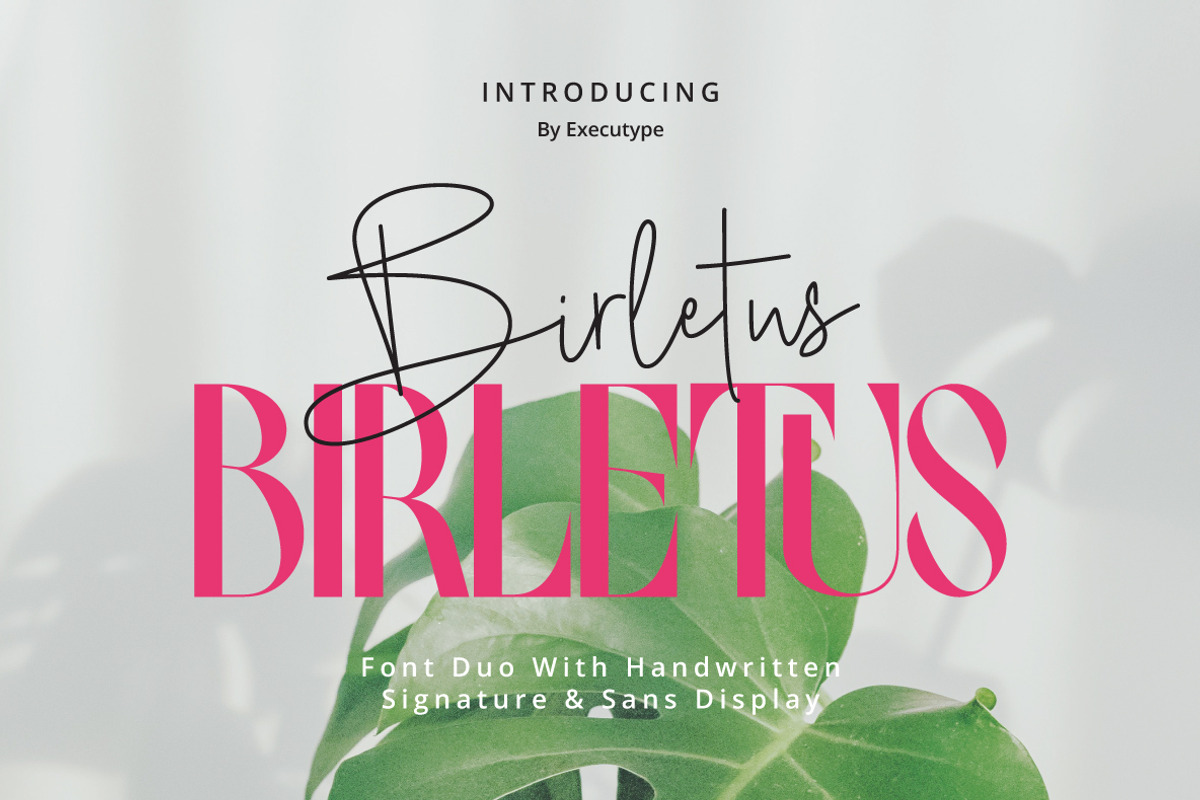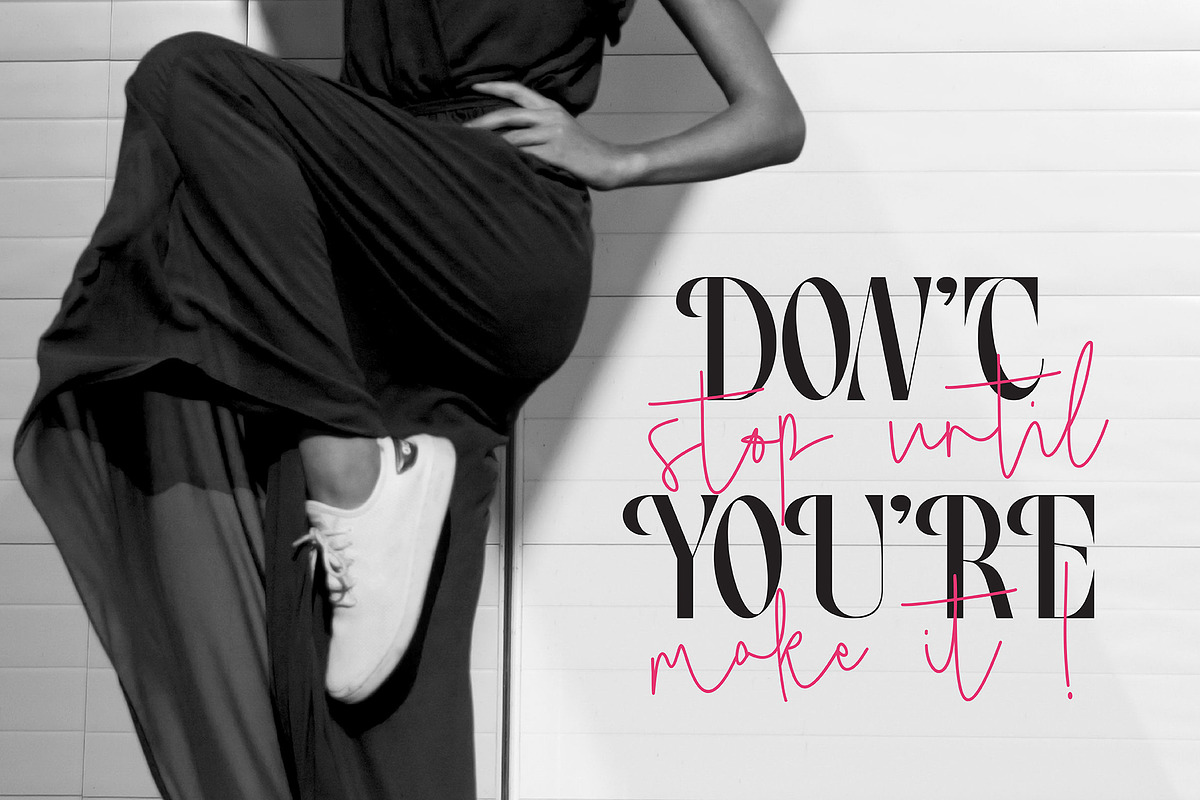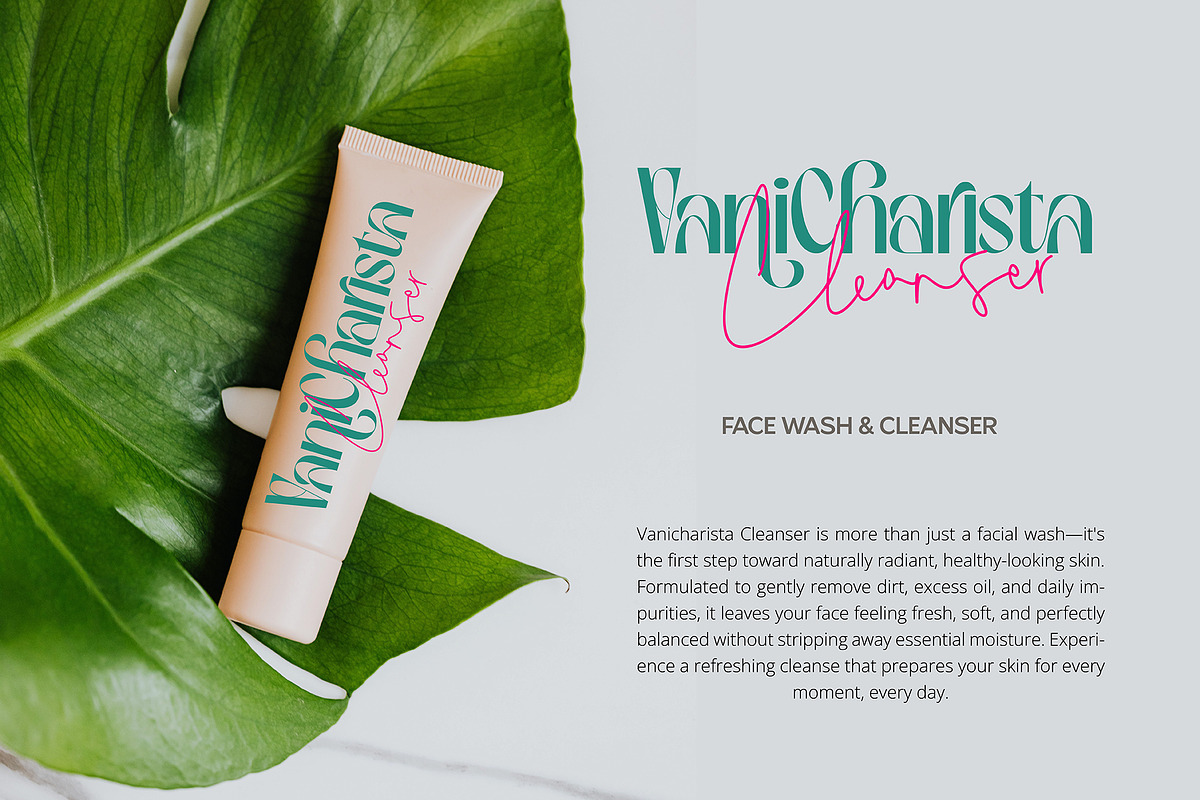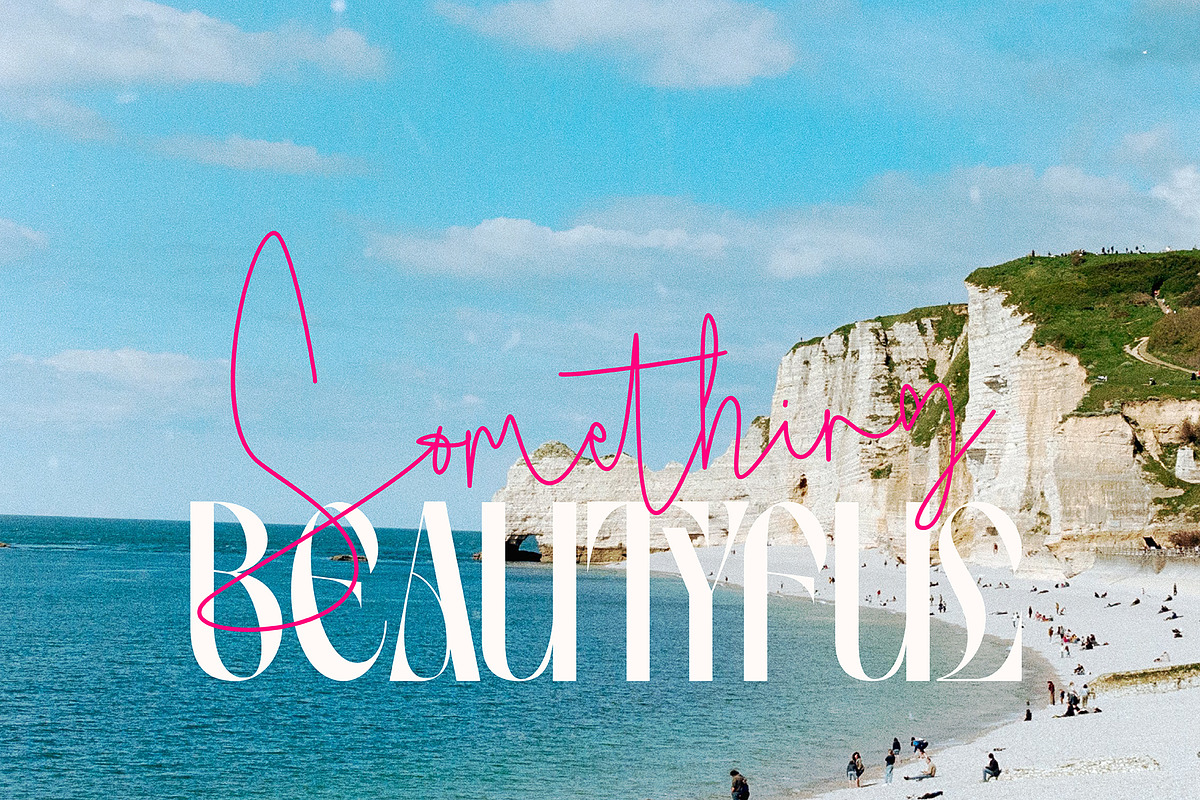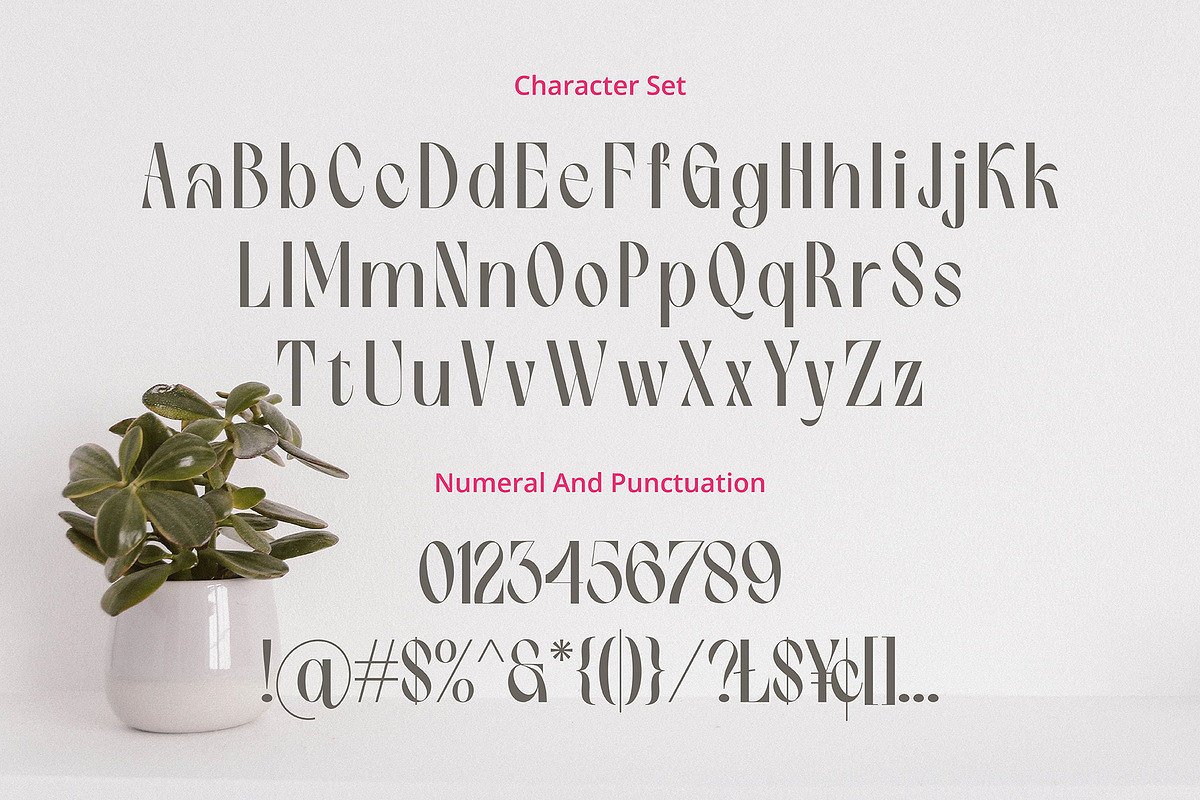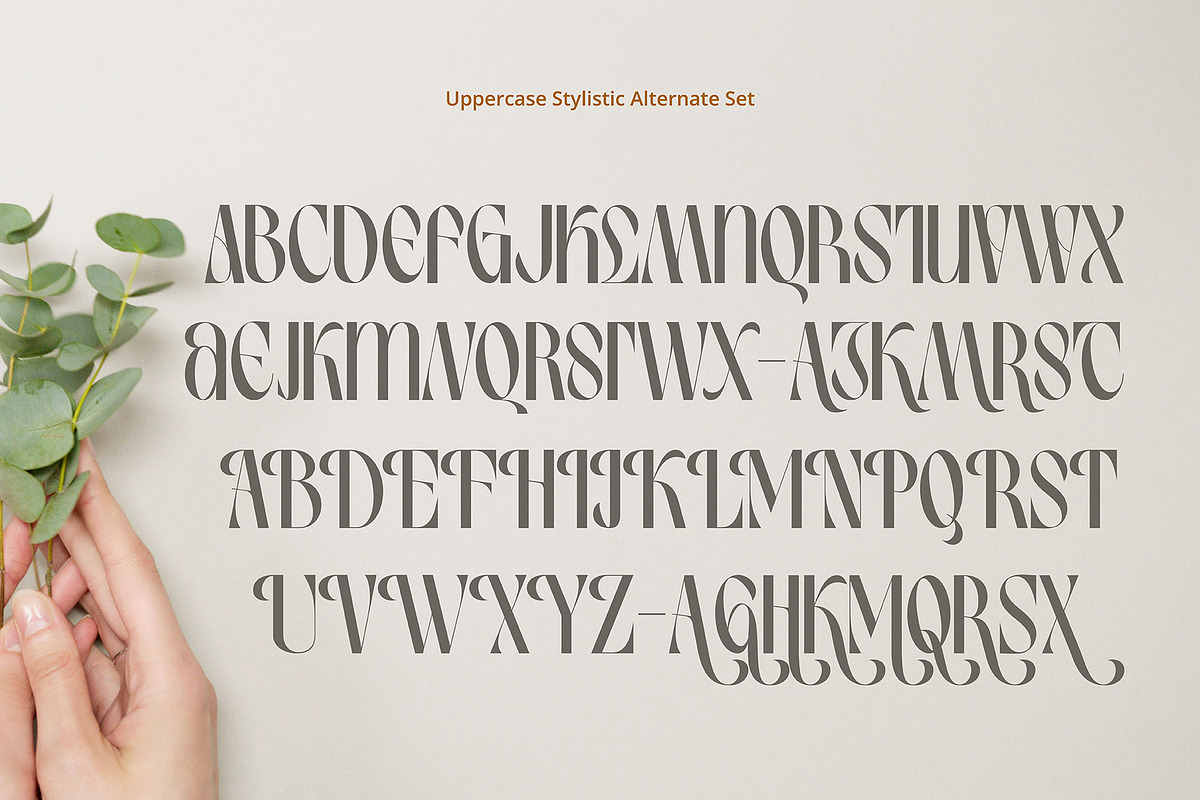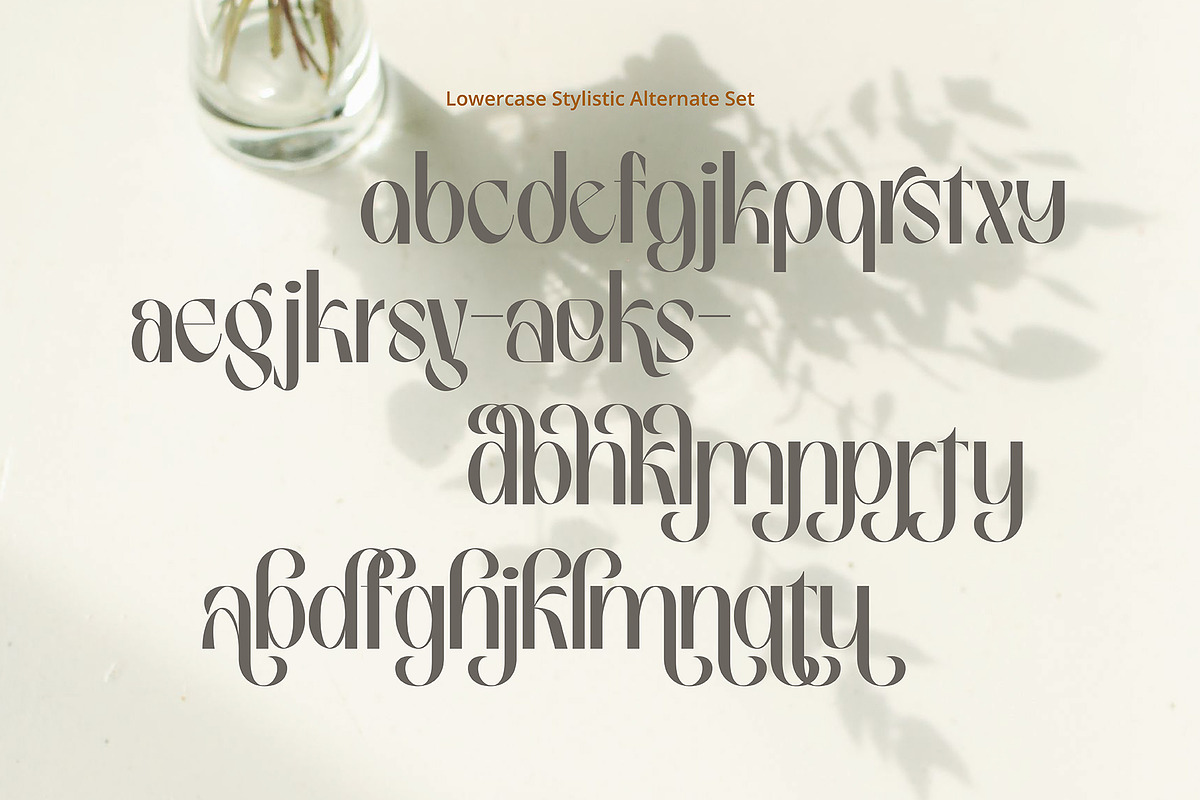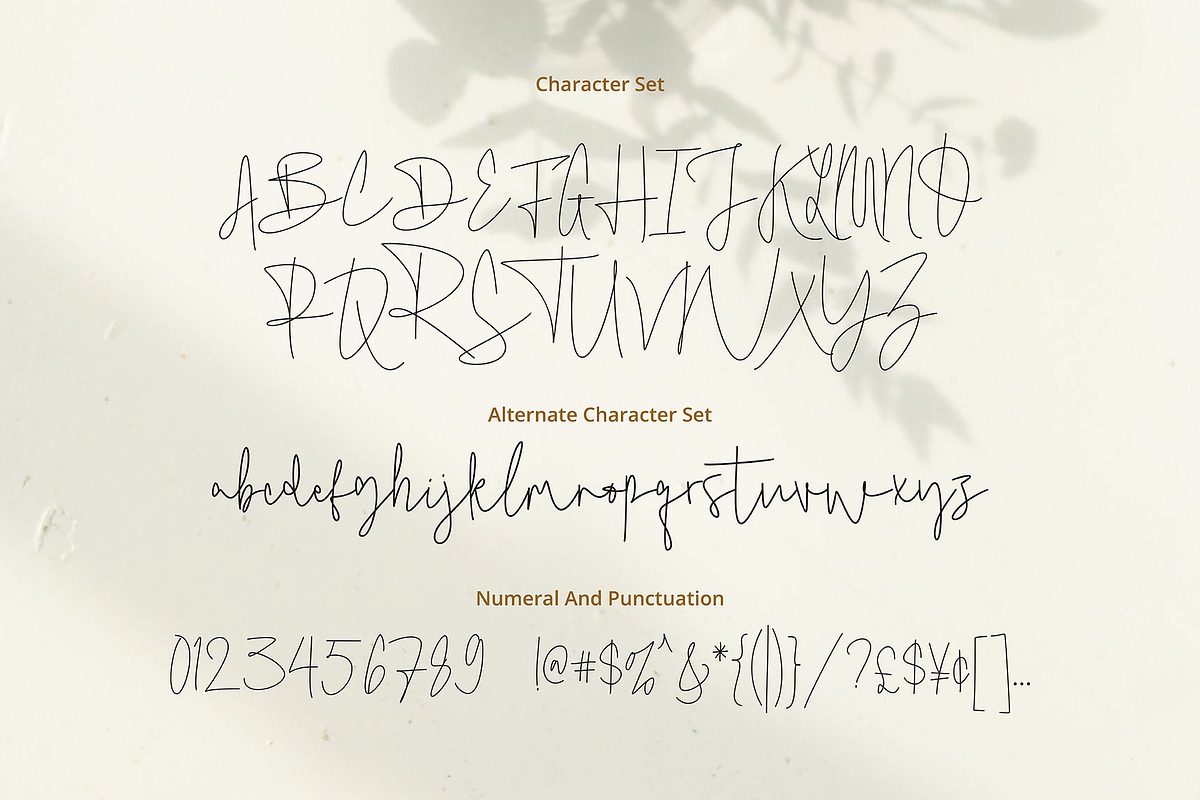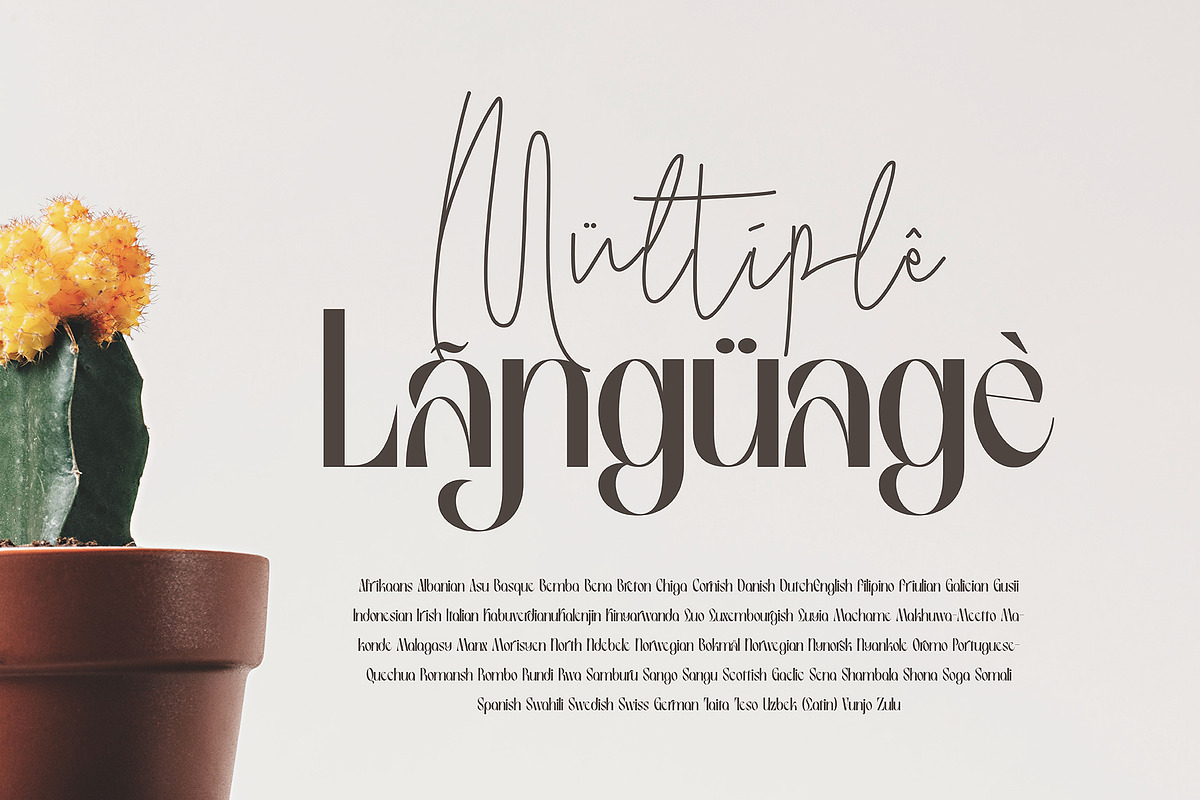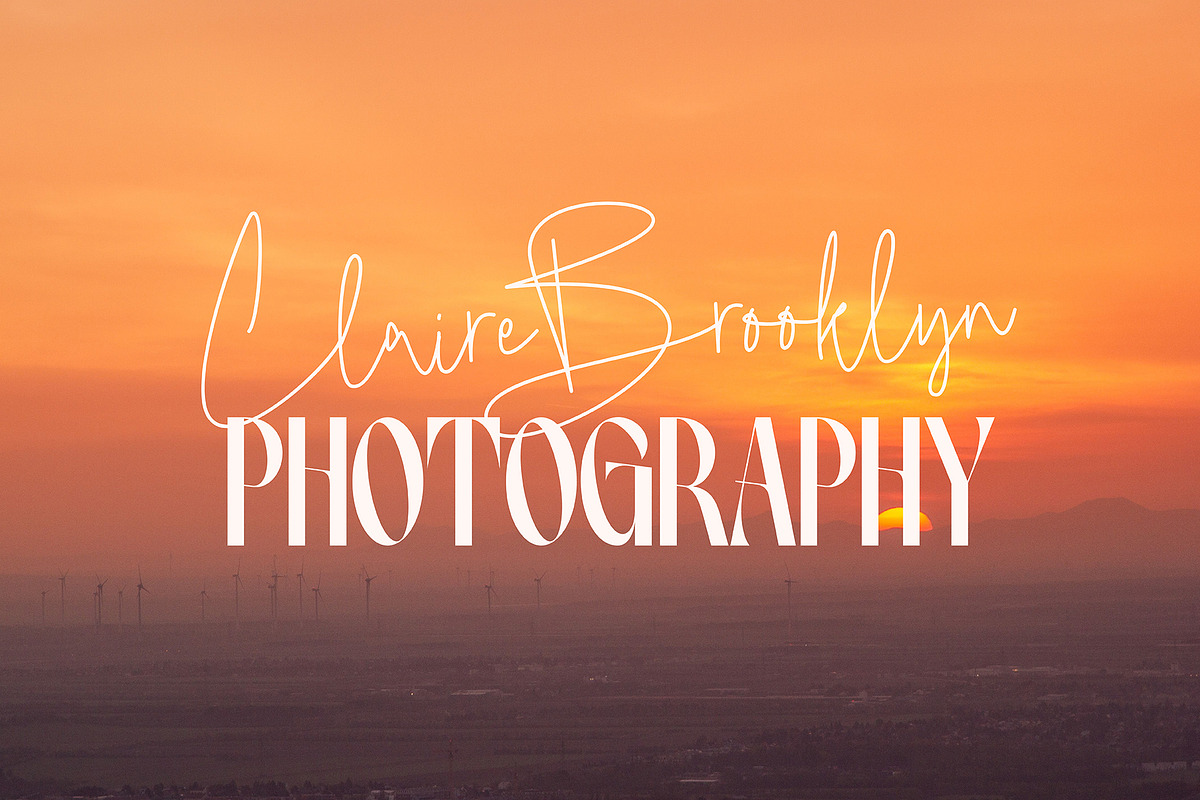
Birletus Display Font duo
Birletus is a modern font duo that combines an elegant handwritten signature with a clean, bold sans display.
The script font brings a personal, romantic, and feminine touch, while the sans display adds strength and modern readability. Together they create the perfect pairing for logos, branding, and social media.
- Full Uppercase & Lowercase
- Numbers, Punctuation & Multilingual Support
- Stylistic Alternates for Script
- Perfect for: Wedding Invitations, Logo, Beauty Brand, Photography, Fashion, Social Media, Branding, Product Packaging
Birletus: Create something beautiful.